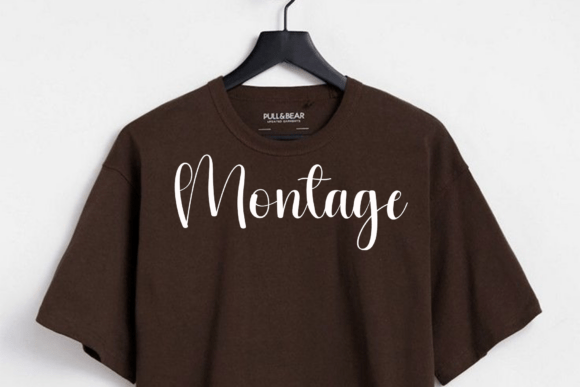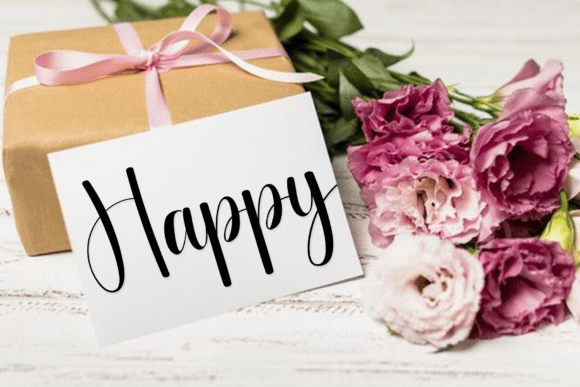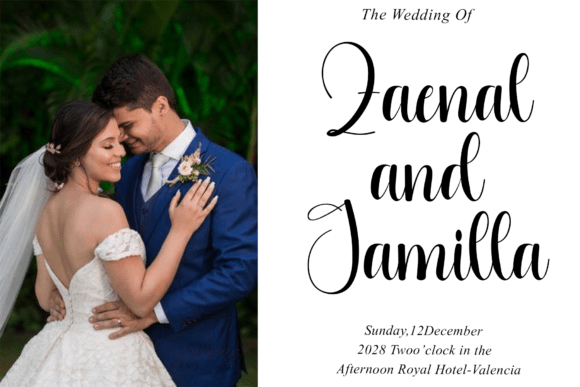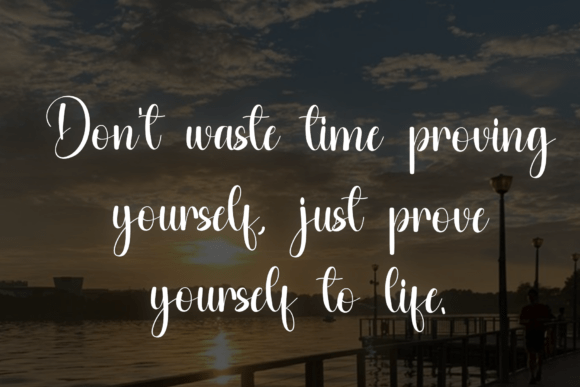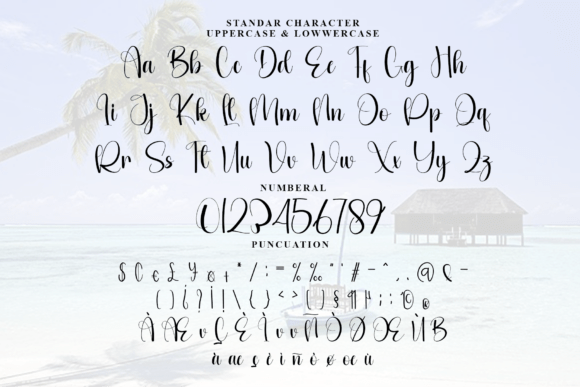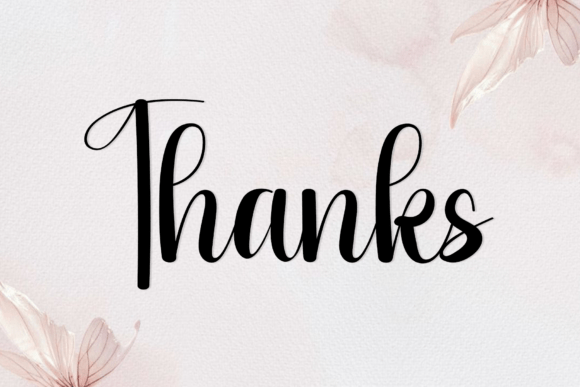
Introducing Benefist Font: Elevate Your Design with Elegance and Sophistication
In the world of typography, a well-crafted font can make all the difference in elevating a design from ordinary to extraordinary. For designers and crafters seeking a typeface that exudes elegance, sophistication, and a touch of luxury, look no further than Benefist Font. This beautifully flowing and elegant modern handwritten script font is designed to bring a sense of refinement and poise to any project.
The Characteristics of Benefist Font
Benefist Font boasts smooth, generous curves and graceful, elongated strokes that give it a sophisticated, signature look. Its unique and professional design makes it an ideal choice for a wide range of applications, from personal branding and photography watermarks to luxury wedding stationery and editorial design. The font’s sweeping, authentic, and naturally luxurious feel is sure to captivate audiences and leave a lasting impression.
Whether you’re a designer looking to create a stunning visual identity for a client or a crafter seeking to add a touch of elegance to your handmade products, Benefist Font is the perfect choice. Its versatility and adaptability make it suitable for various design projects, including:
- Personal Branding: Establish a strong and sophisticated brand identity with Benefist Font. Its elegant design makes it perfect for logos, business cards, and letterheads.
- Photography Watermarks: Add a touch of luxury to your photographs with a custom watermark featuring Benefist Font. Its unique design will help protect your work while enhancing its visual appeal.
- Luxury Wedding Stationery: Create breathtaking wedding invitations, save-the-dates, and ceremony programs with Benefist Font. Its elegant and sophisticated design will set the tone for an unforgettable celebration.
- Editorial Design: Elevate your editorial designs, such as magazines, blogs, and newspapers, with Benefist Font. Its flowing and elegant design will add a touch of sophistication to your content.
Why Choose Benefist Font?
With so many fonts available, why choose Benefist Font? Here are just a few reasons why designers and crafters love this beautiful typeface:
- Unique and Professional Design: Benefist Font boasts a unique and professional design that will set your work apart from the rest.
- Versatility: Its adaptability makes it suitable for various design projects, from personal branding to editorial design.
- Elegance and Sophistication: Benefist Font exudes elegance and sophistication, making it perfect for luxury brands and high-end designs.
- Easy to Read: Despite its elegant design, Benefist Font remains easy to read, making it perfect for body text and headlines.
Tips for Using Benefist Font
To get the most out of Benefist Font, here are a few tips to keep in mind:
- Use it Sparingly: While Benefist Font is beautiful, it’s best used sparingly to avoid overwhelming the reader. Use it for headings, titles, or emphasis to create visual interest.
- Pair it with a Sans-Serif Font: For body text, pair Benefist Font with a sans-serif font to create a striking contrast and enhance readability.
- Experiment with Colors: Benefist Font looks stunning in a variety of colors. Experiment with different hues and shades to find the perfect combination for your design.
In conclusion, Benefist Font is a beautifully flowing and elegant modern handwritten script font that is sure to elevate your designs to new heights. Its unique and professional design, versatility, and elegance make it perfect for designers and crafters seeking to add a touch of sophistication to their work. Whether you’re creating a personal brand, designing luxury wedding stationery, or crafting editorial designs, Benefist Font is the perfect choice. So why wait? Discover the beauty of Benefist Font and take your designs to the next level.